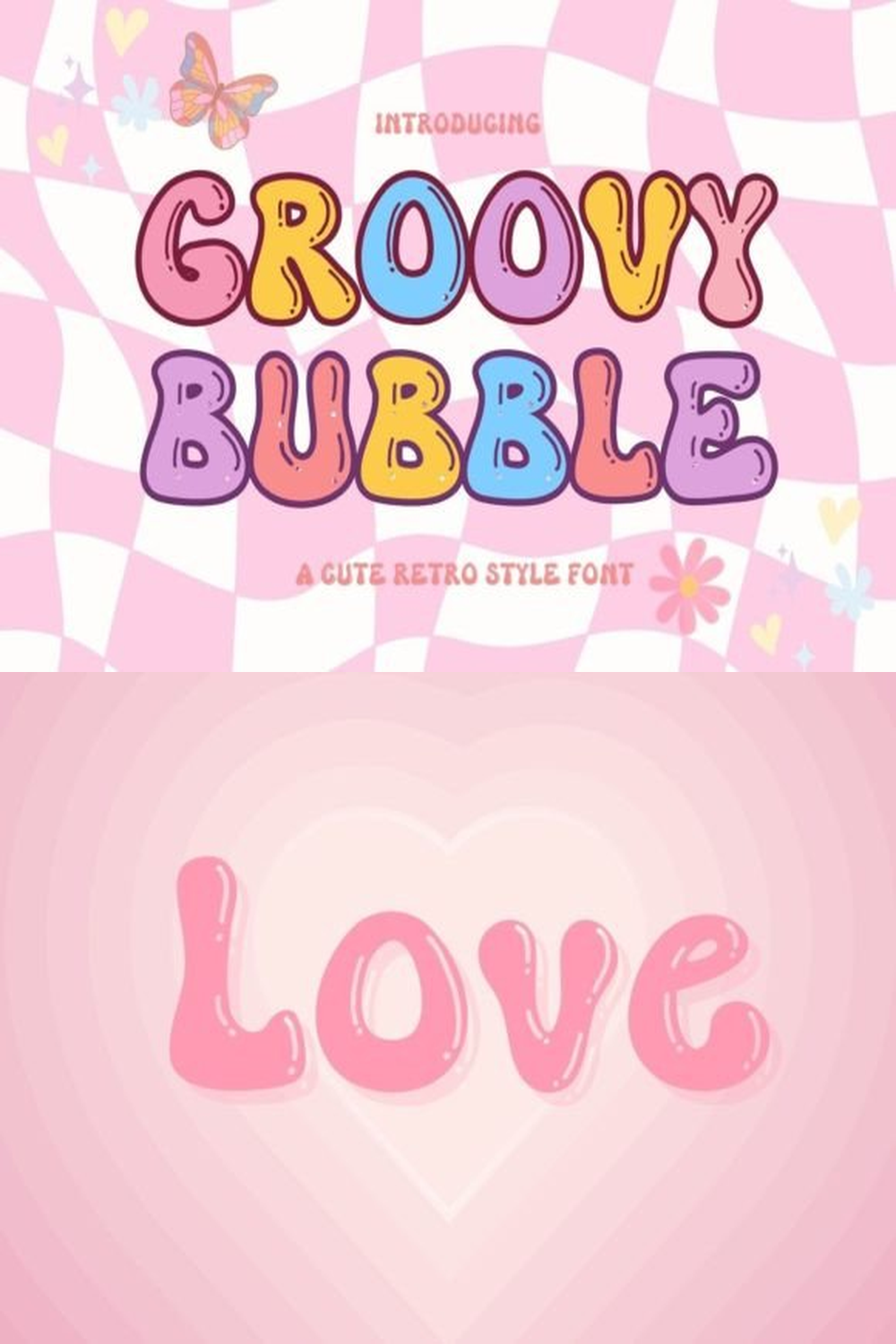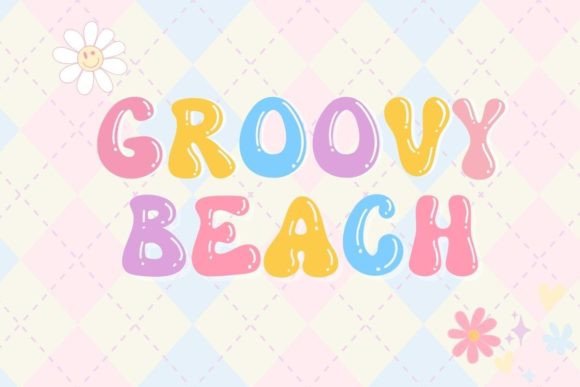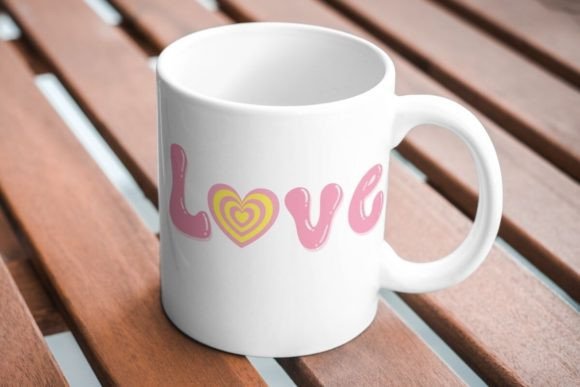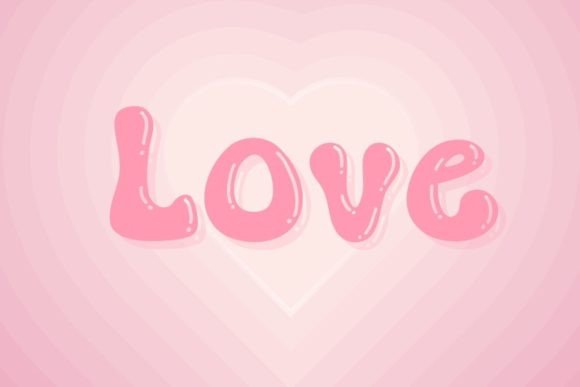
Groovy Bubble Font: A Fun Retro Display Font for Cricut!
About the Groovy Bubble Font
Experience the unique personality of Groovy Bubble Font, a font designed for impact. Groovy Bubble is a cute and playful display font. Use it to add that special retro touch to any design idea you can think of! Masterfully designed to become a true favorite, this font has the potential to bring each of your creative ideas to the highest level!
Groovy Bubble thrives in display contexts such as headlines, posters, and short-form branding elements where its playful nature shines. It’s ideal for projects targeting a youthful or retro-inspired audience, particularly those emphasizing fun and vibrancy. Avoid using it for body text or lengthy paragraphs; its whimsical forms are not optimized for readability in continuous text.
Pair Groovy Bubble effectively with a clean sans-serif like Open Sans for a balanced contrast, or a more geometric sans-serif for a modern twist. For a vintage feel, consider pairing it with a classic serif like Garamond. These pairings allow Groovy Bubble’s unique charm to stand out without overwhelming the overall design.
Its core personality is undeniably playful and retro, conveying a sense of fun and lightheartedness. Think children’s products, ice cream parlors, or retro-themed events. This font is a great choice for adding a touch of vintage charm and whimsical energy.
Groovy Bubble Font Usage Examples
Groovy Bubble Font Example